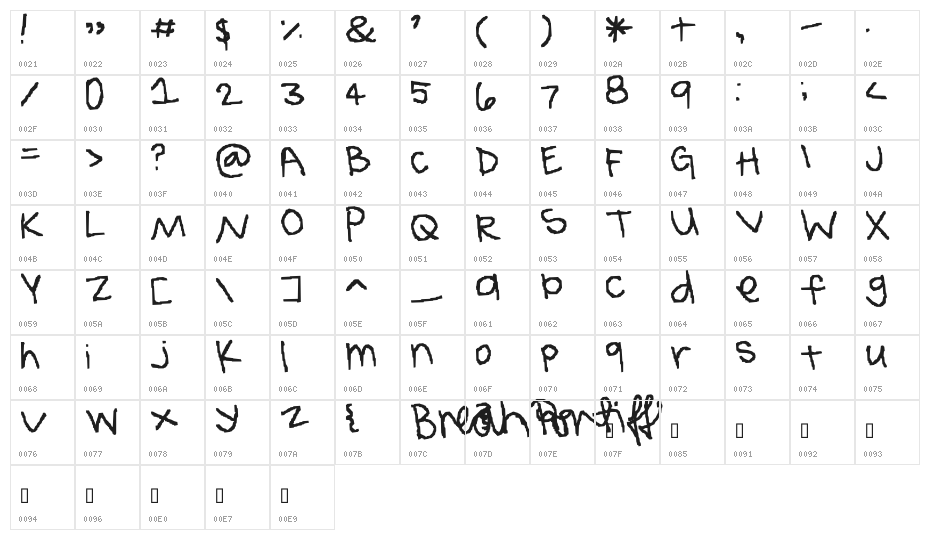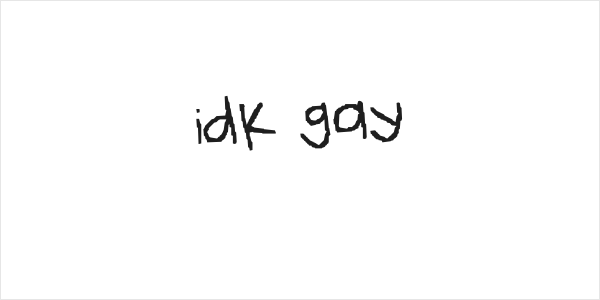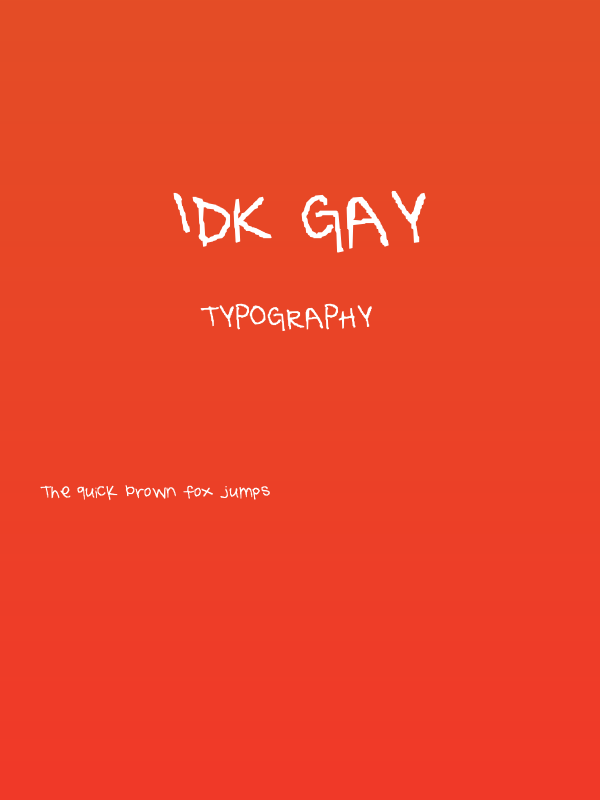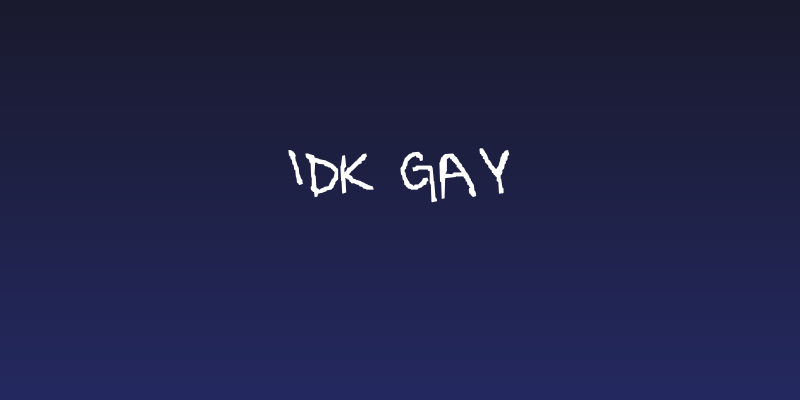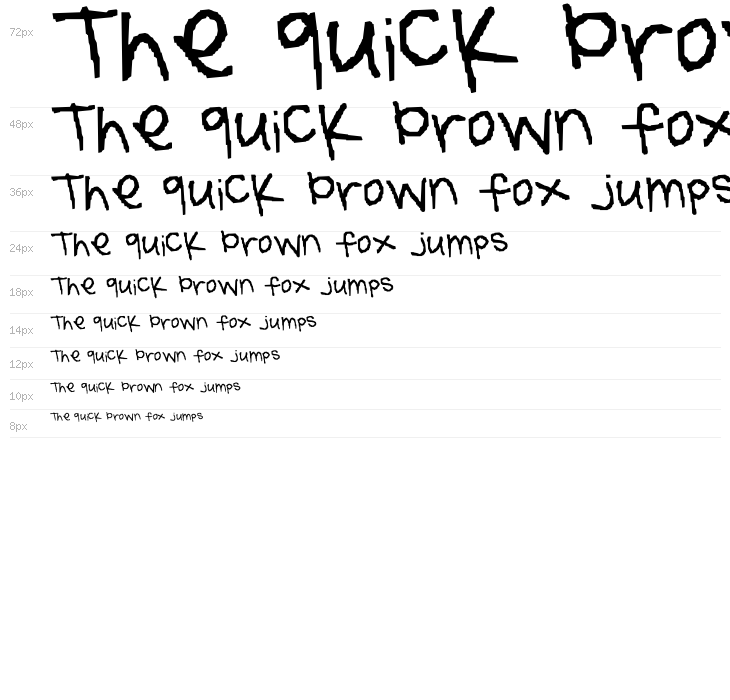
idk gay Font
idk gay Description
This font features a playful and informal handwritten style, characterized by irregular strokes and a casual appearance. The letters have a slightly uneven baseline, adding to the whimsical and spontaneous feel. The uppercase and lowercase letters maintain a consistent style, with rounded edges and varying stroke widths that give a dynamic and lively impression. The numerals and special characters follow the same informal aesthetic, making the font suitable for creative and fun projects. Its unique charm lies in its imperfect and organic look, which can add a personal touch to any design.